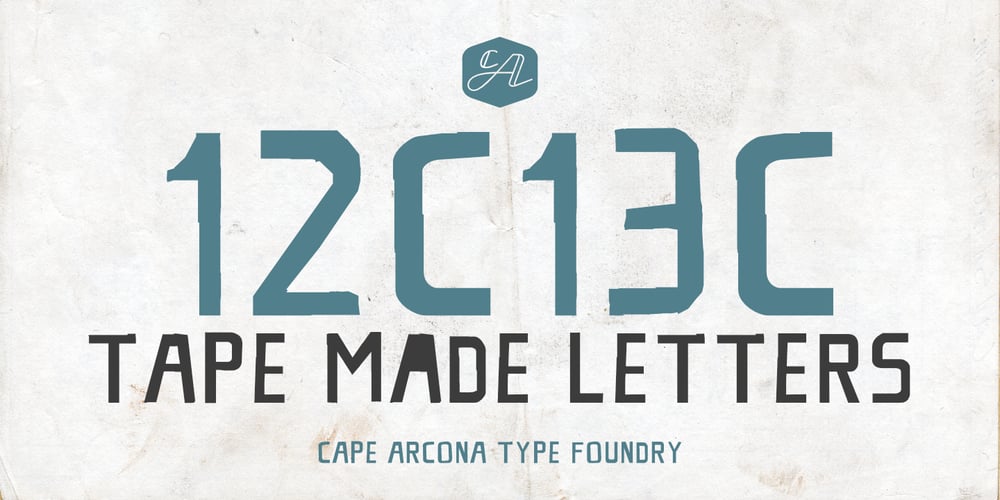
CA 12c13c
CA 12c13c font
CA 12c13c Font Family was designed by Thomas Schostok and published by Cape Arcona Type Foundry. CA 12c13c contains 1 styles and family package options. CA 12C13C was designed by sticking letters together with tape. Use it when right angles are strictly forbidden!